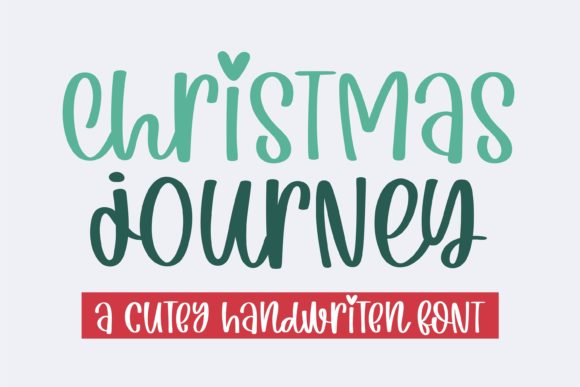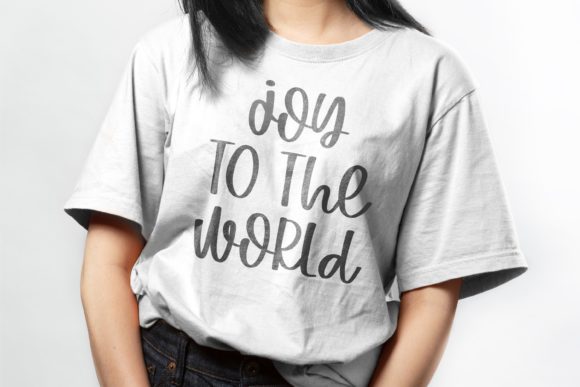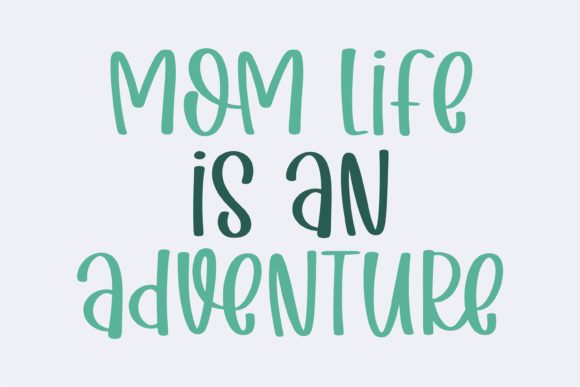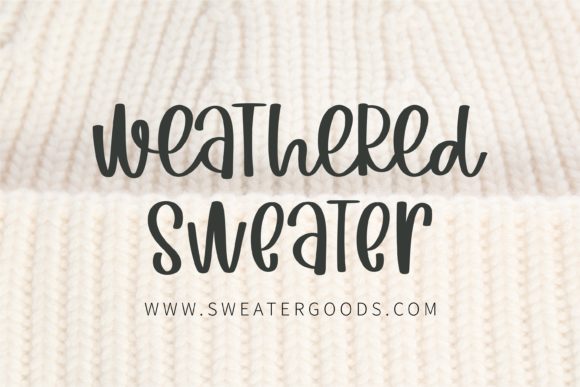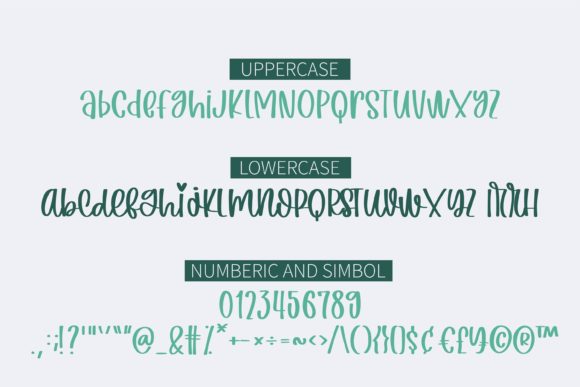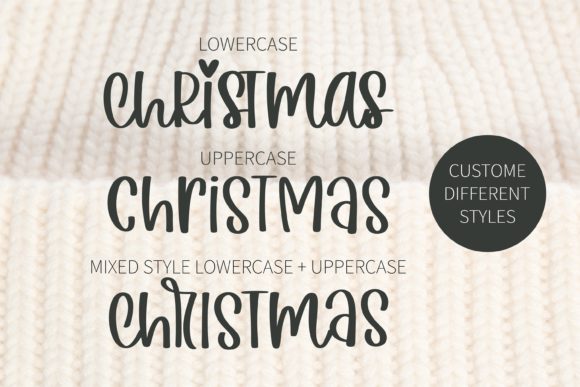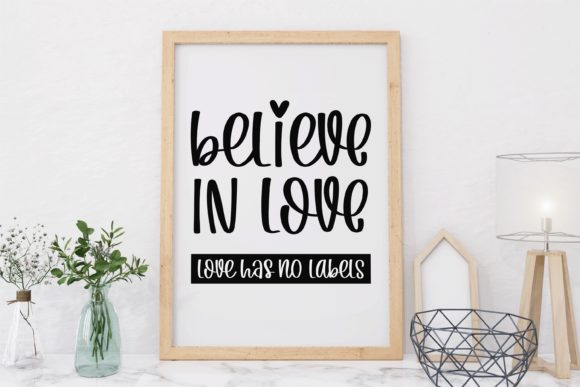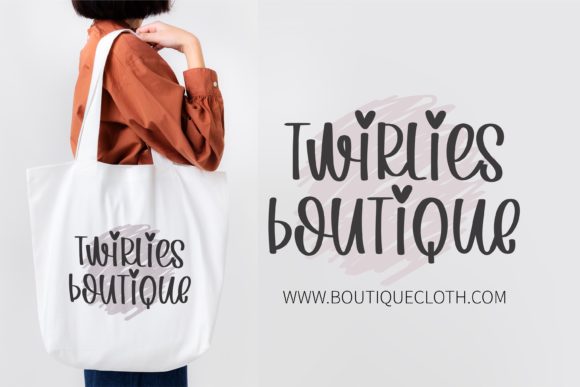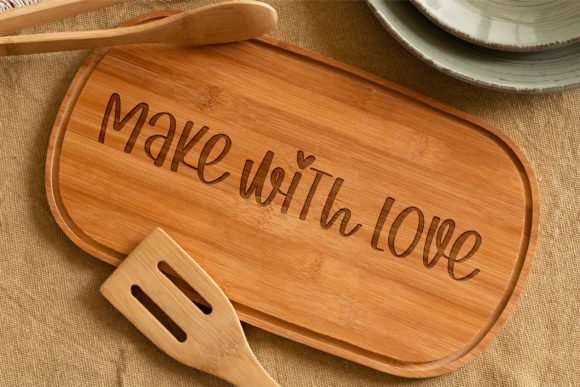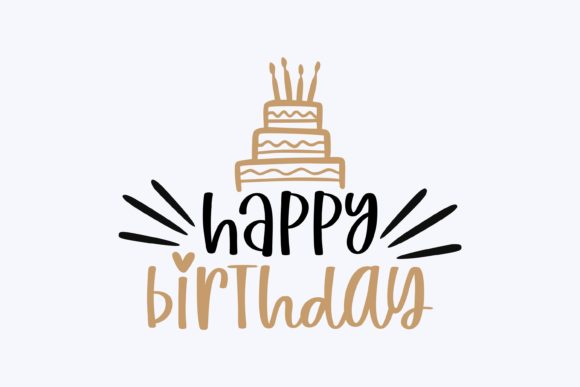
Christmas Journey Font
About Christmas Journey Font
Christmas Journey is a cool, friendly, and informal handwritten font that can be used for all chalkboard quotes or teaching material! Its authentic look and feel will add a personal and realistic touch to your designs.